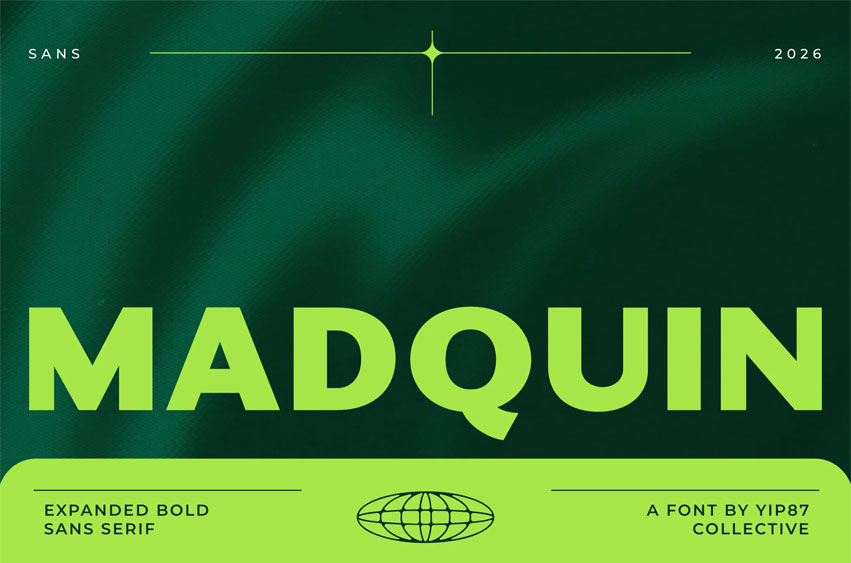
Madquin Font
Madquin Font is a Clean Minimalist Modern Expanded Bold Sans Serif, designed specifically for logos, branding, headers / headline, game, music, techno, urban, college, race car and sport branding. Madquin is impactful and timeless logos and branding materials.